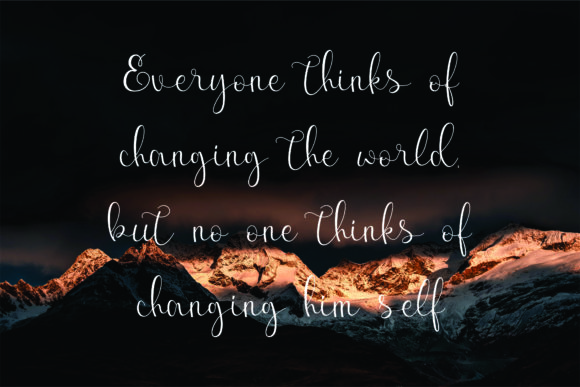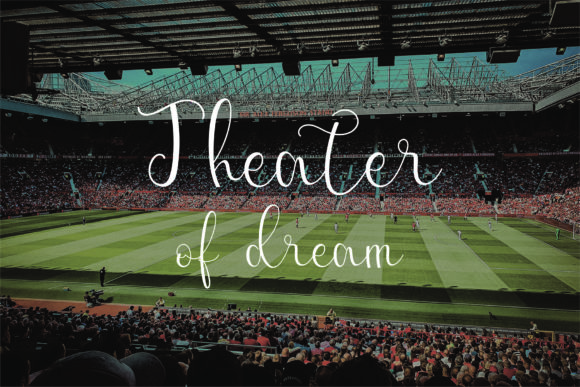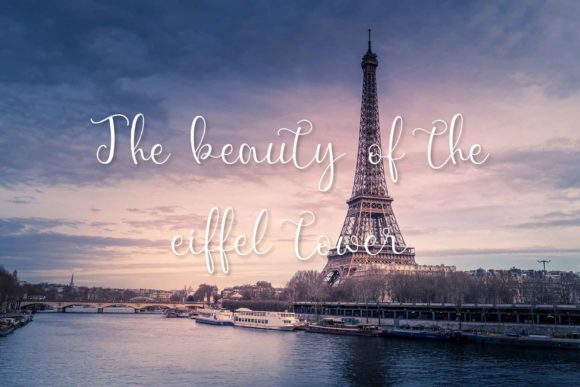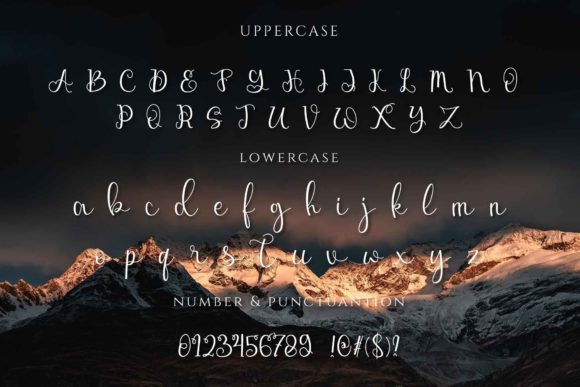
Unlock the Elegance of Your Designs with Andicha Font
As a designer, have you ever found yourself struggling to convey the perfect blend of sophistication and modernity in your work? You’ve poured your heart and soul into creating a stunning logo, but something’s missing – a touch of refinement that sets it apart from the rest. This is where the Andicha Font comes in, a beautiful and refined script font that’s sure to elevate your designs to new heights.
With its classy, elegant, and modern look, the Andicha Font is perfect for a wide range of applications, from logos and branding to invitations, stationery, and wedding designs. Its versatility and timeless charm make it an invaluable asset for any designer looking to add a touch of sophistication to their work.
Andicha Font Key Features
- Unique Characteristics: This font features a unique blend of traditional and modern design elements, with intricate details and subtle nuances that set it apart from other fonts.
Designer Review: Andicha Font
Overall, I think Andicha Font is a decent addition to any designer’s toolkit. ✨ The font’s unique blend of modern and traditional elements makes it a great choice for projects that need a bit of flair. The subtle nuances in letterform design and the range of weights available make it versatile and easy to use.
- ✨ Customizability: Andicha Font has a wide range of weights and styles, making it easy to match the font to your project’s specific needs.
- ✨ Unique aesthetic: The font’s blend of modern and traditional elements gives it a unique look that’s hard to find in other fonts.
- ✨ Consistency: The font’s consistency across different weights and styles makes it easy to use and ensures a cohesive look.
However, there are some limitations to keep in mind. ⚠️ The font may not be the best choice for projects that require a clean, minimal look. Some of the letterforms can be a bit cluttered, which may detract from the overall design. Additionally, the font may not be as readable at smaller font sizes.
- ⚠️ Limited legibility: Some of the letterforms may be difficult to read at smaller font sizes.
- ⚠️ Not ideal for minimal designs: The font’s unique aesthetic may not be the best fit for projects that require a clean, minimal look.
Overall, I would give Andicha Font 3.5 out of 5 stars. While it’s not perfect, it’s a solid choice for designers looking for a unique and versatile font. With a bit of careful selection and placement, Andicha Font can be a great addition to any project.
Tips for Getting the Most Out of Andicha Font
Experiment with different font sizes and styles to achieve the desired effect. Use Andicha Font for headings and titles to add a touch of elegance to your designs. For best results, pair Andicha Font with complementary fonts to create a visually appealing combination.
Andicha Font is suitable for a variety of applications, including:
– Business cards and marketing materials
– Blog posts and articles
– Social media graphics and advertisements